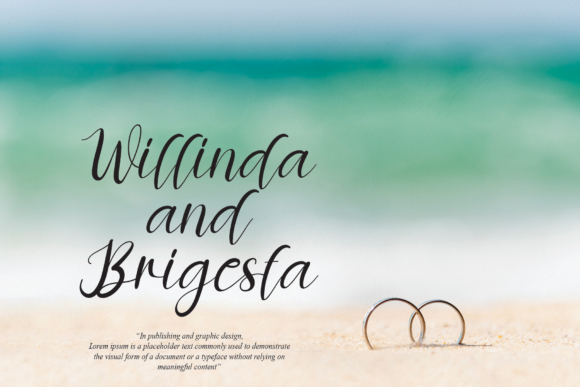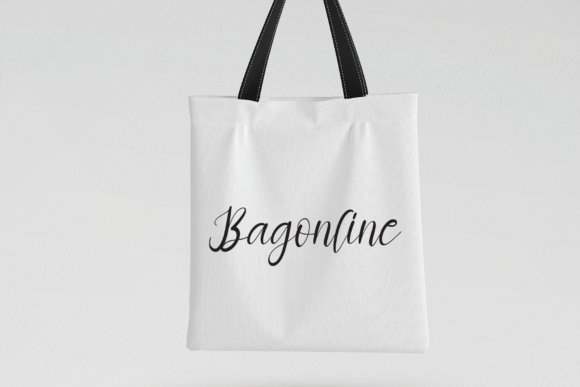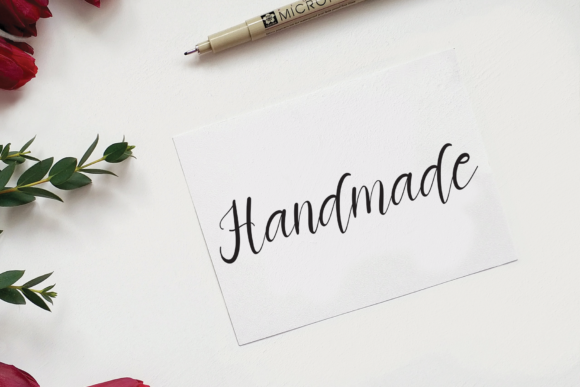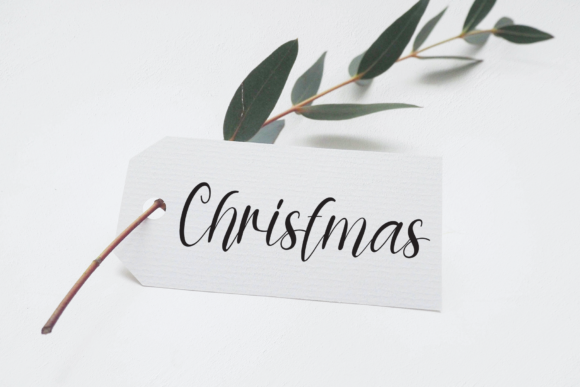
The Sweet Charm of Handwritten Fonts
As a designer, have you ever been stuck in a creative rut, searching for that perfect font to give your project a personal touch? I know I have. One moment that stands out in my mind was when I stumbled upon the Almond Cake Font – a delightful handwritten font that immediately sparked my imagination. Its unique alternate thickness creates characters that feel almost hand-painted, adding a touch of whimsy to any design.
The Almond Cake Font is more than just a pretty face; it’s a versatile tool for designers looking to add a handwritten touch to their work. Whether you’re creating a wedding invitation, social media post, or product packaging, this font is sure to make your project stand out. Its value lies in its ability to evoke emotions and create a sense of connection with the viewer.
Almond Cake Font Key Features
- Font Family: Almond Cake is a script font family designed to evoke the feeling of delicate pastries and desserts.
- Unique Characteristics: Almond Cake Font features intricate details, elegant flourishes, and a touch of whimsy, making it perfect for adding a touch of sophistication and playfulness to designs.
Designer Review: Almond Cake Font
Overall, I found Almond Cake Font to be a visually appealing choice for baking-related projects. The design is playful and whimsical, making it perfect for dessert labels, menus, and packaging. ✨
- Unique and charming design that adds a personal touch to baking-related projects.
- Good for titles and headings, as the font is easy to read and understand.
- Looks great on both digital and printed materials.
- May not be suitable for formal or professional projects, as it’s more suited for casual and playful designs.
- Lack of bold weights, which can limit its use in certain applications.
- May not be easily readable in small font sizes, which can be a concern for digital displays.
- ⚠️ Some characters, such as the ‘a’ and ‘g’, may be easily confused with each other.
Almond Cake Font is a delightful choice for baking-related projects, but it may not be the best fit for all applications. While it’s perfect for playful and whimsical designs, it may struggle in more formal or professional settings. With a bit of creative thinking, however, it can add a touch of personality to any project.
The Almond Cake Font is ideal for:
- Bakery and food-related designs
- Wedding and event invitations
- Blog and website headers
Alternatives to Almond Cake Font for Designers
Great Vibes is a beautiful, elegant script font perfect for wedding invitations, event branding, or any project that requires a touch of sophistication. It features flowing lines and a classic feel that makes it a great alternative to Almond Cake Font. Great Vibes is ideal for designers who want to add a sense of romance and luxury to their projects.
Comparison to Almond Cake Font: While both fonts have a similar elegant feel, Great Vibes is more classical and refined, whereas Almond Cake Font has a more vintage and whimsical touch.
Curry Script
Curry Script is a modern, cursive font that’s perfect for designers who want to add a touch of playfulness and personality to their projects. It features a bold, expressive feel that makes it a great alternative to Almond Cake Font for projects that require a bit of flair. Curry Script is ideal for designers who want to create a fun and engaging atmosphere.